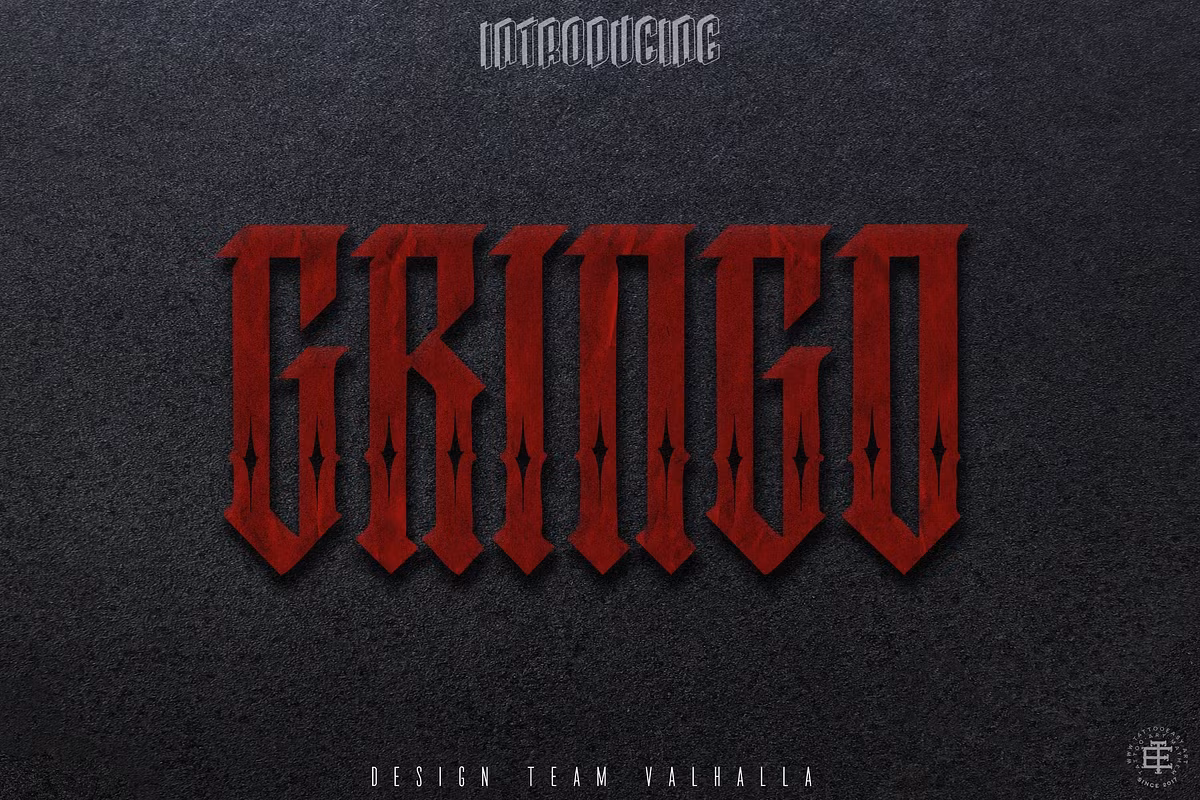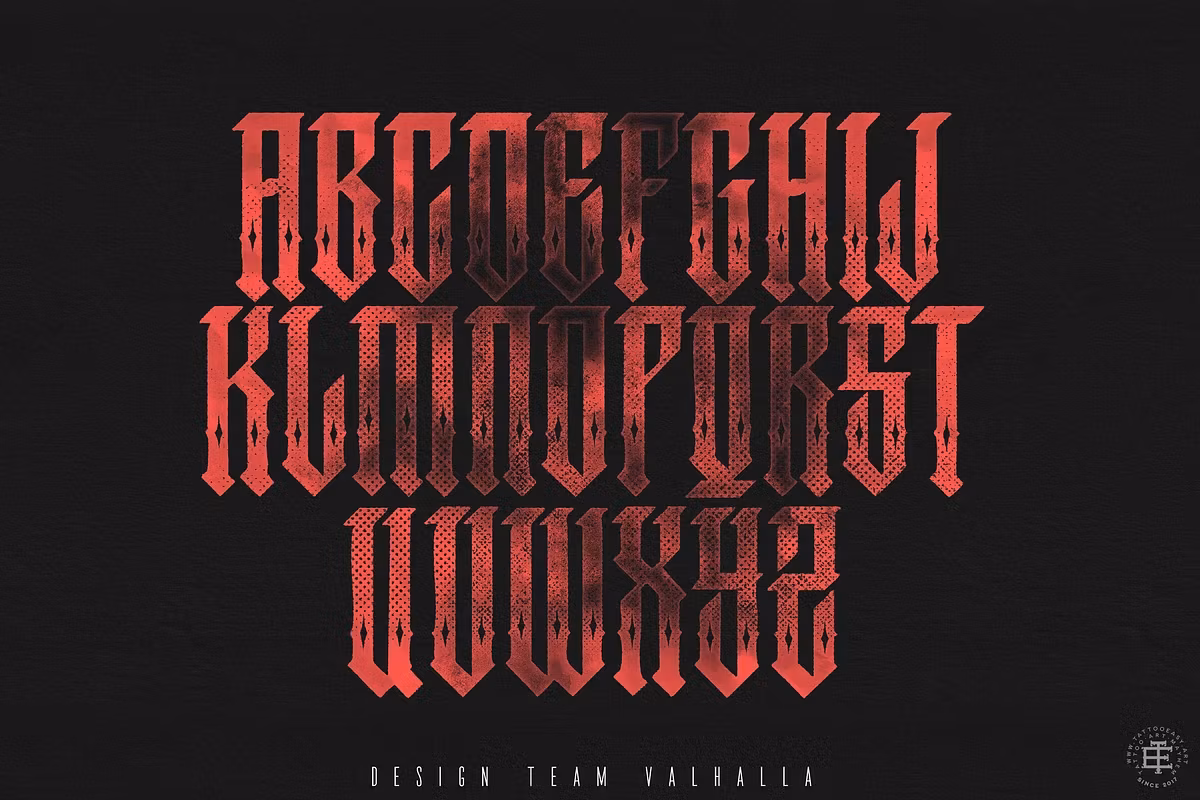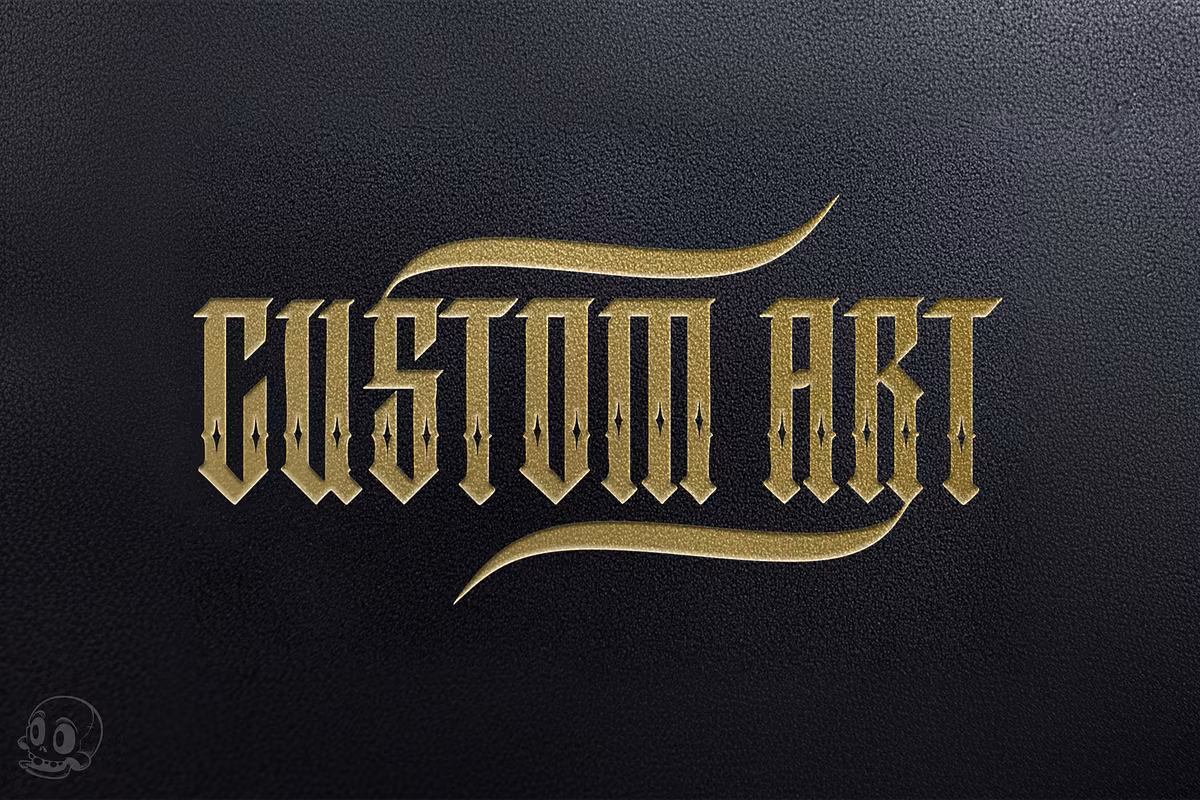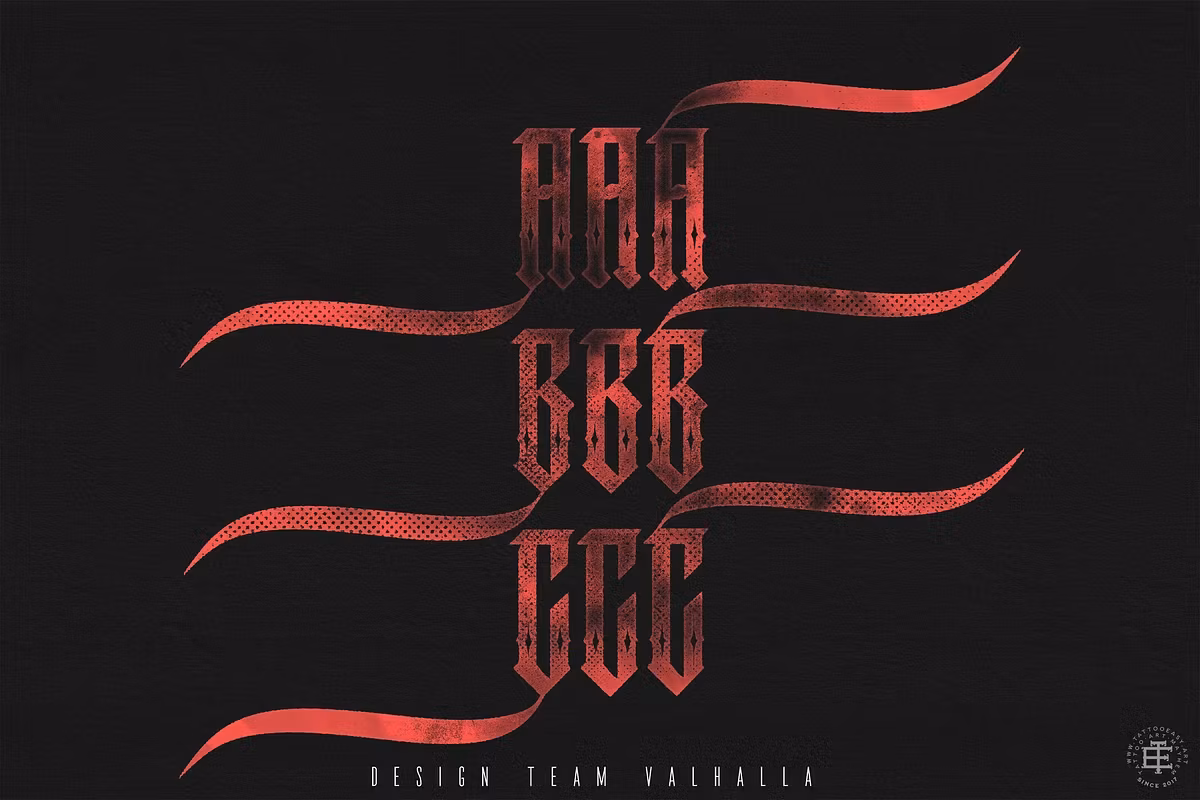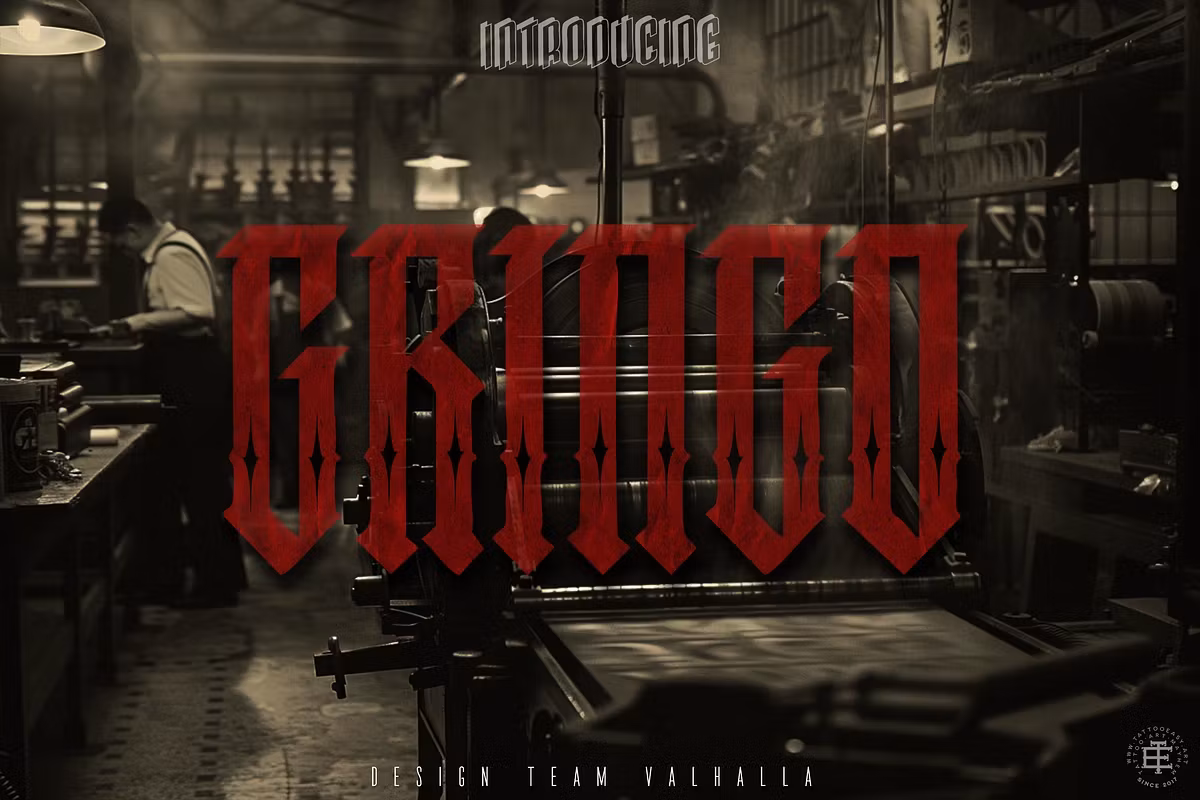
Gringo 5 USD Add to basket Product description Custom made blackletter typeface from Sweden, all the letters have alternative characters with "swooshes".otf font